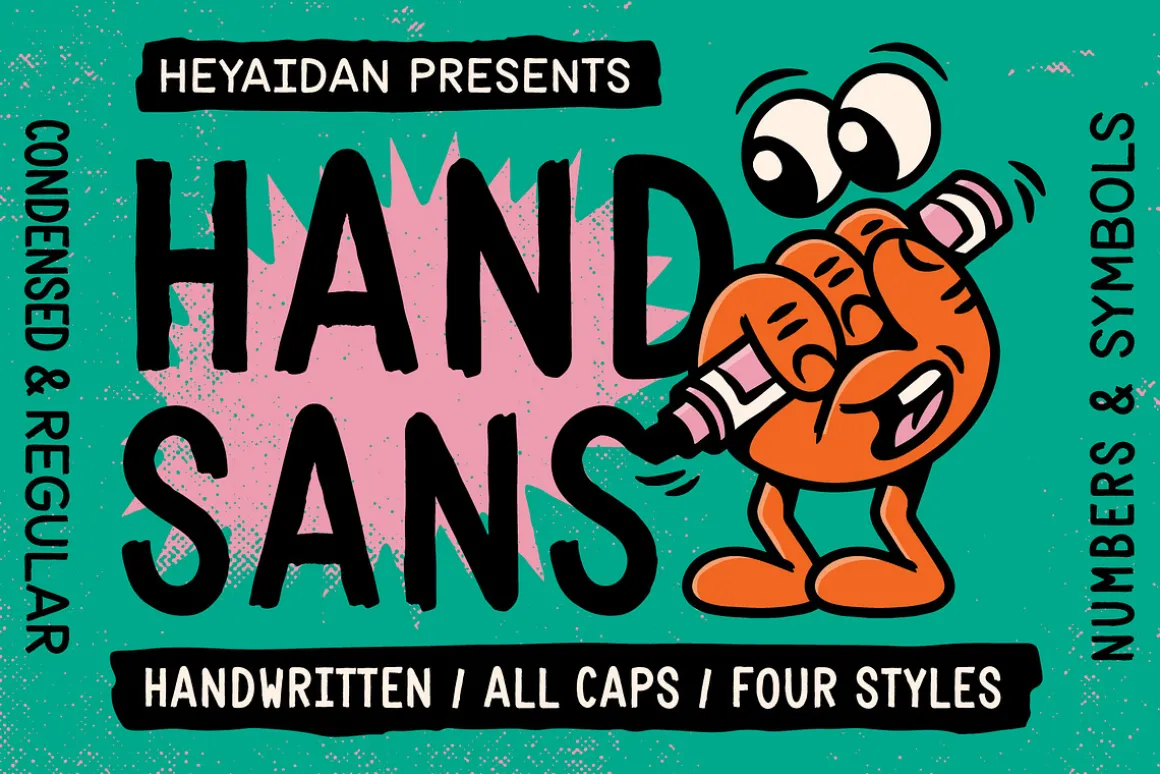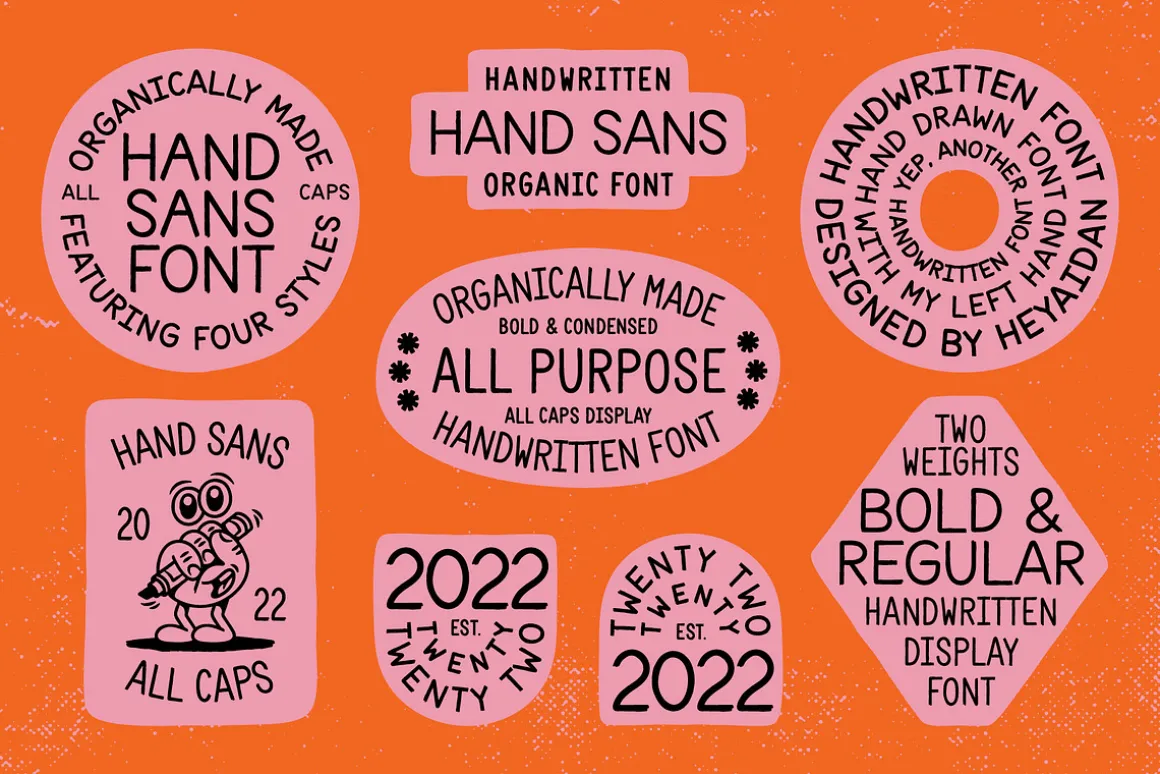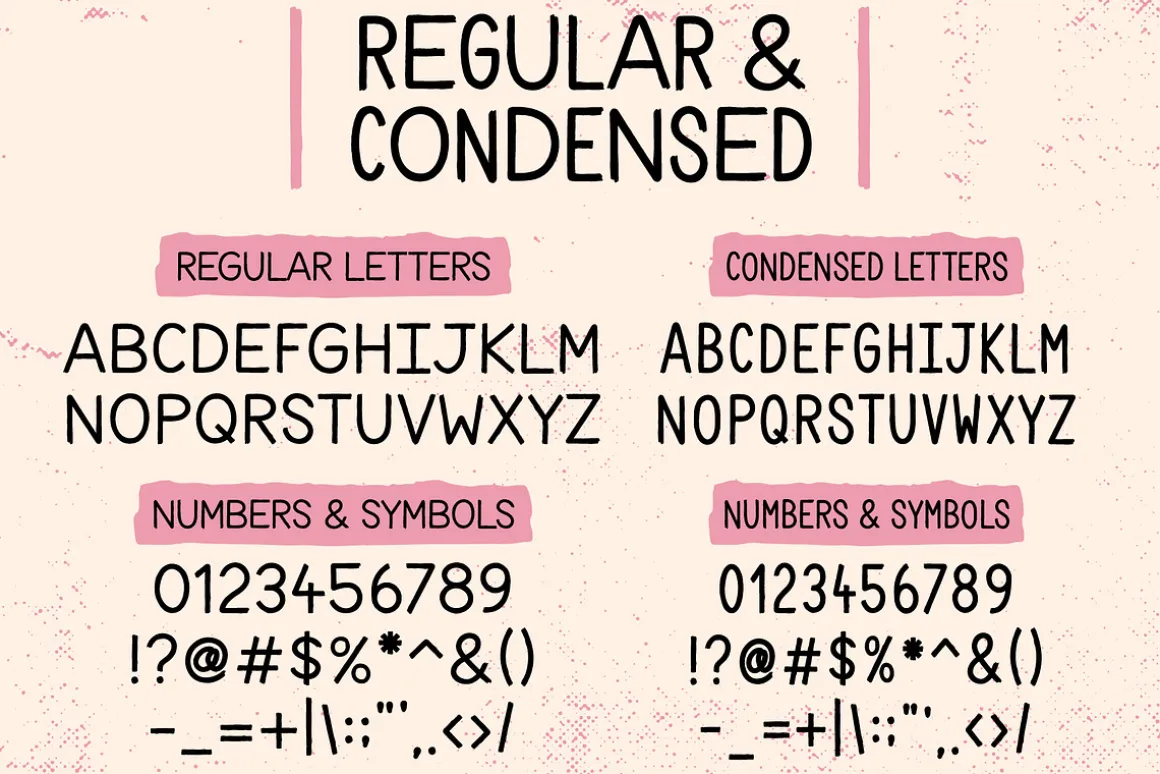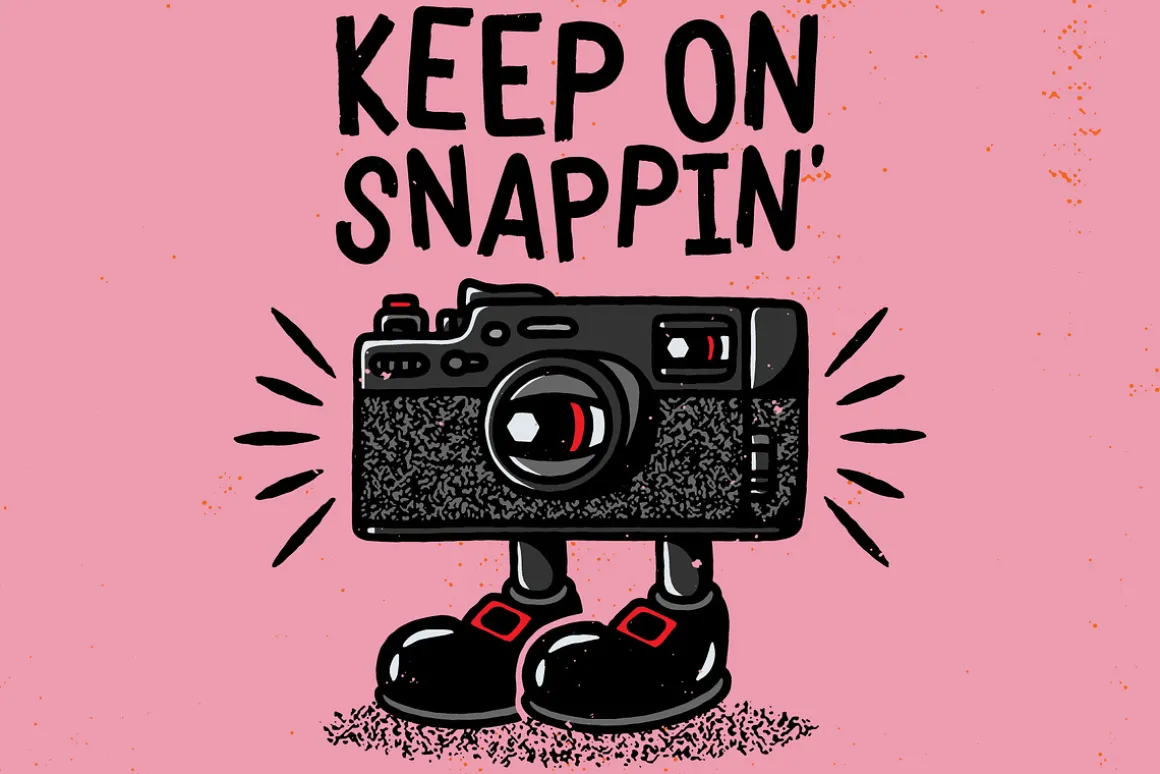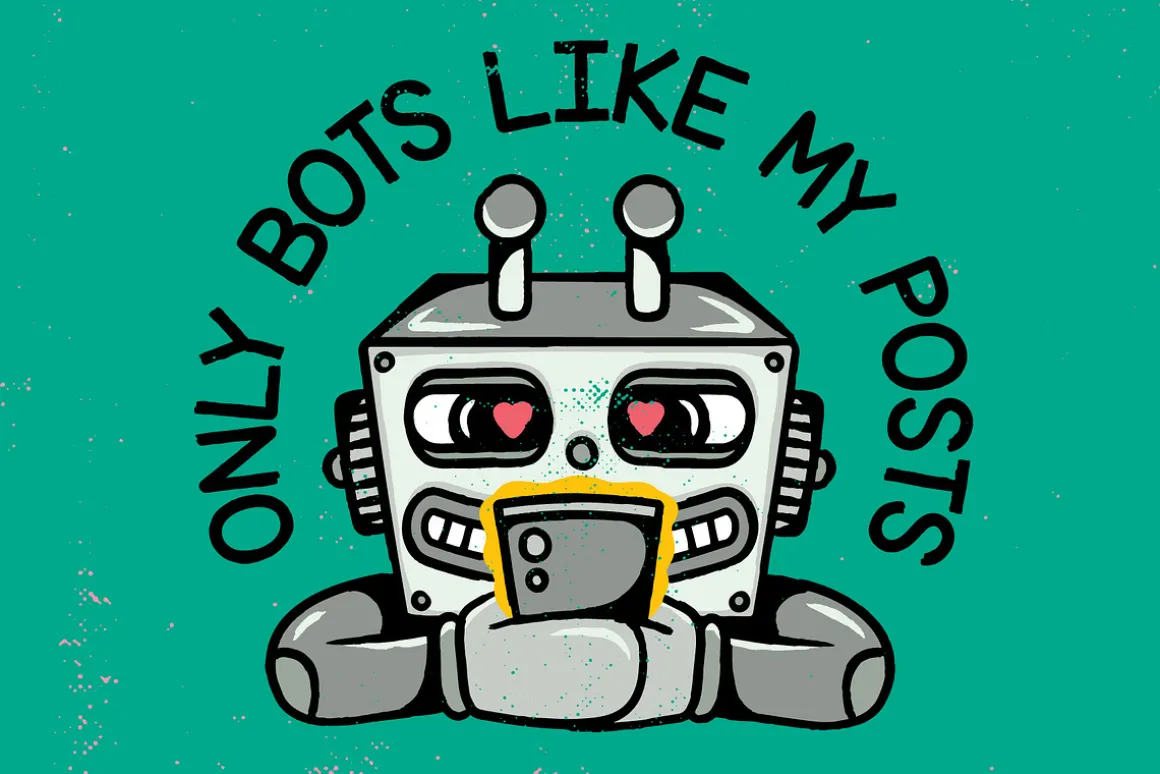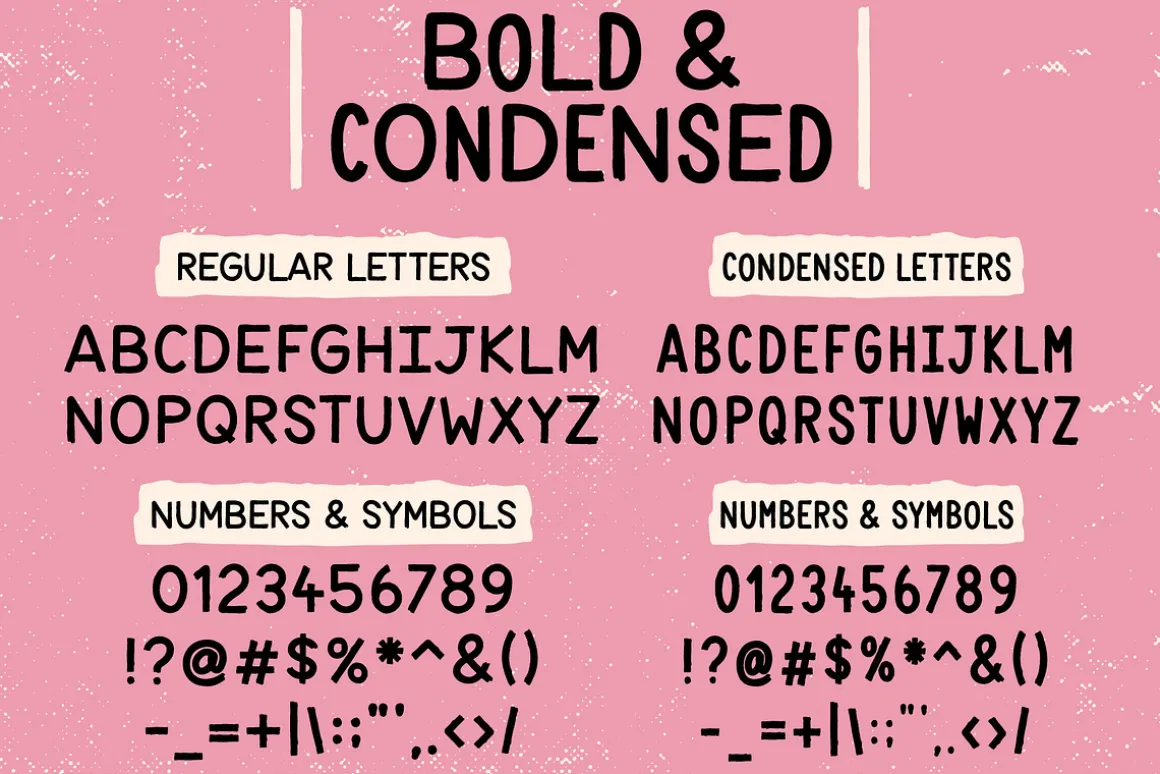
Introducing Hand Sans, featuring more of my own handwriting!
After a sans serif, handwritten font that actually feels like it was written with a marker? I got you! This font is versatile and can be used across many different styles of design including logos, posters and t-shirt graphics.
Hand Sans includes four weights to work with: Regular, Condensed, Bold and Condensed Bold. Mix and mash weights together or have fun with utilising sub copy. Also includes alternate letters for “A”.
- Letters in all caps
- Full Punctuation
- Most common symbols
- Alternatives for A